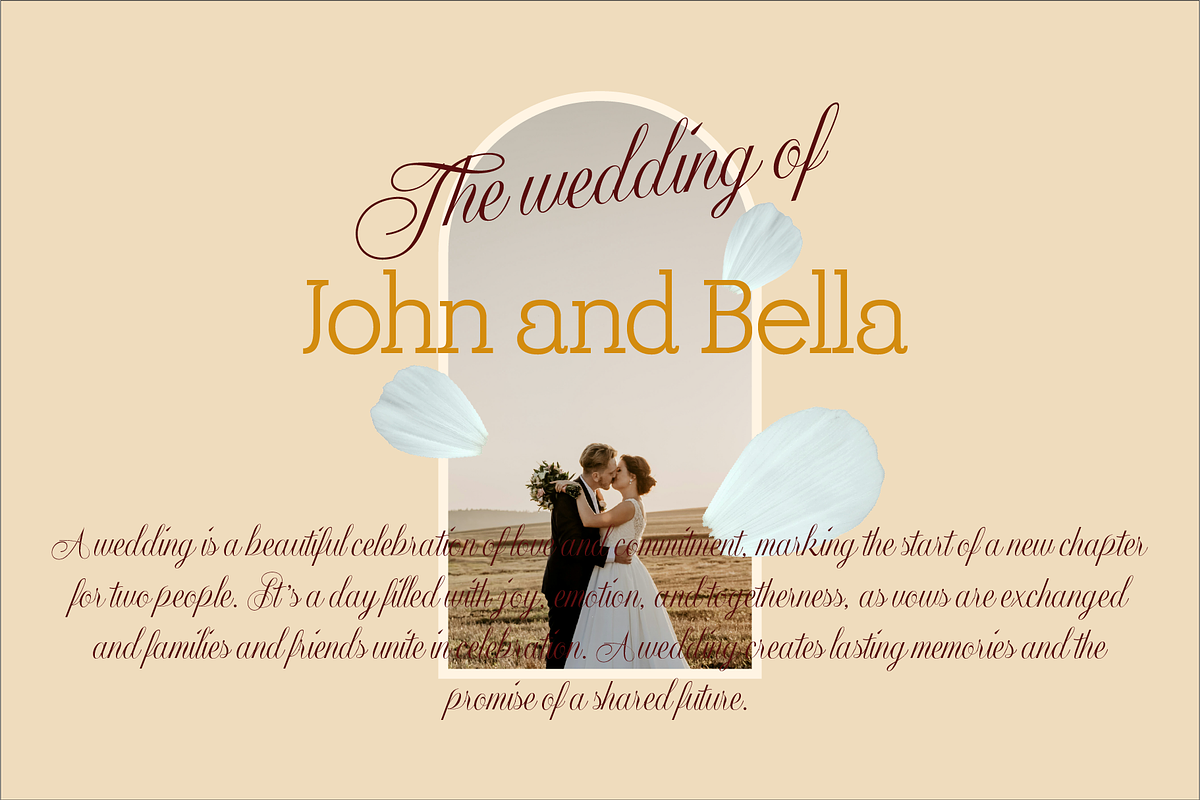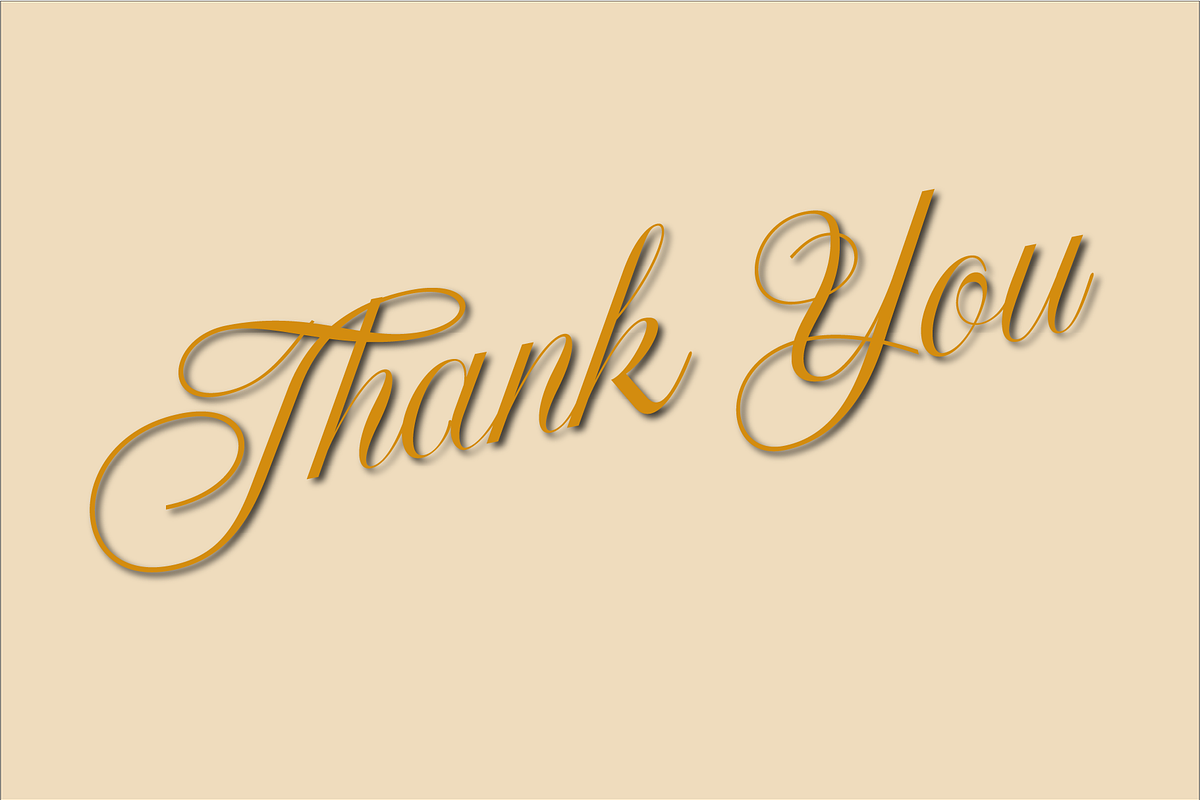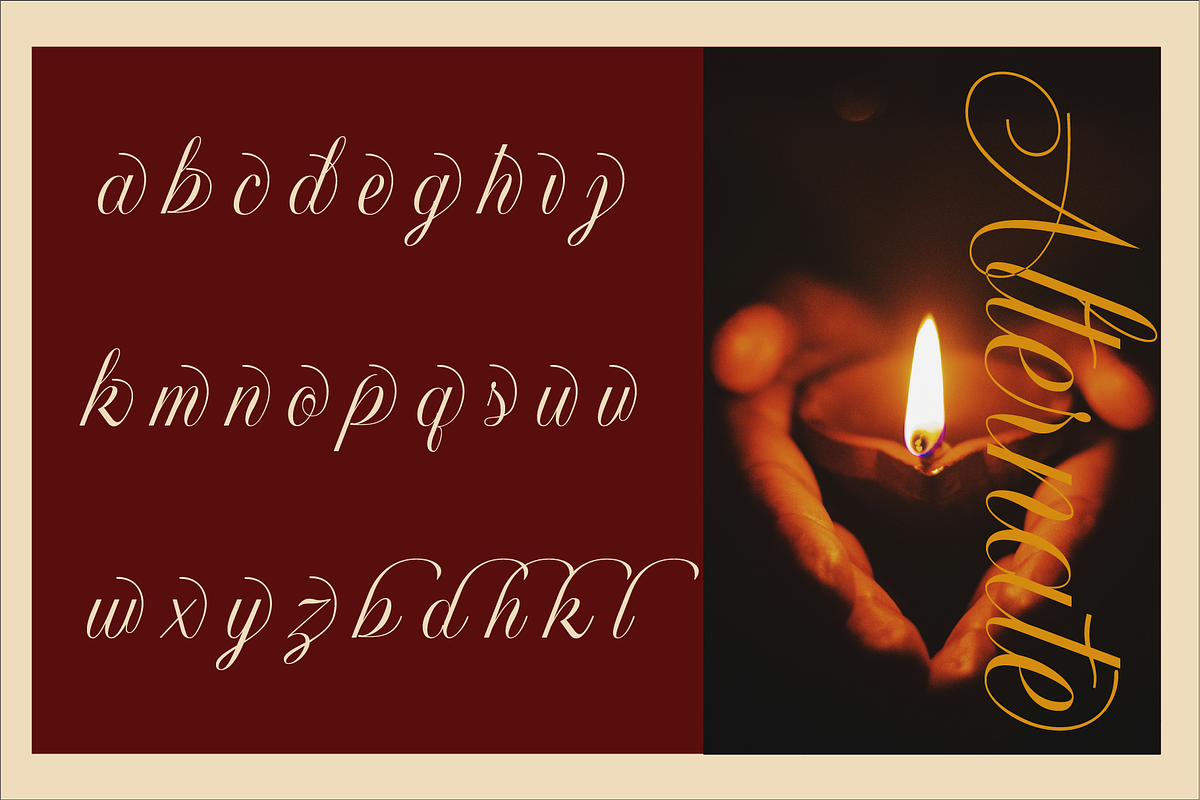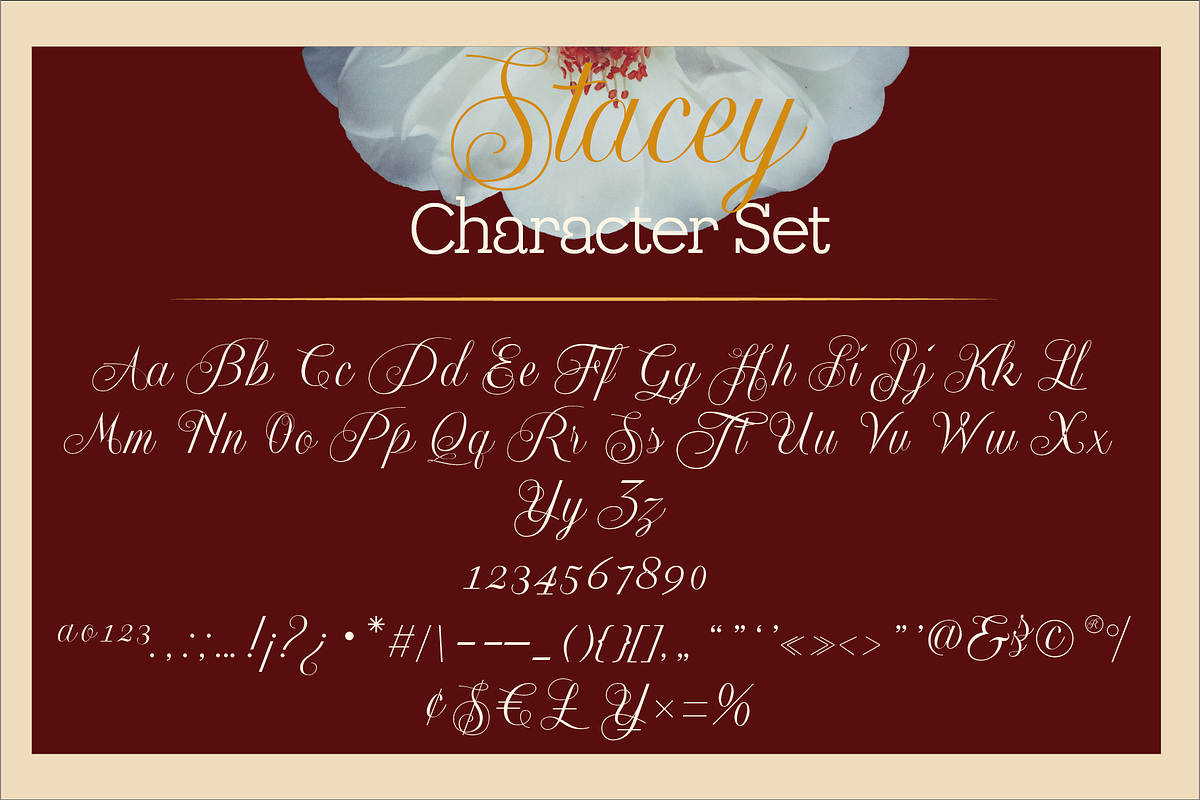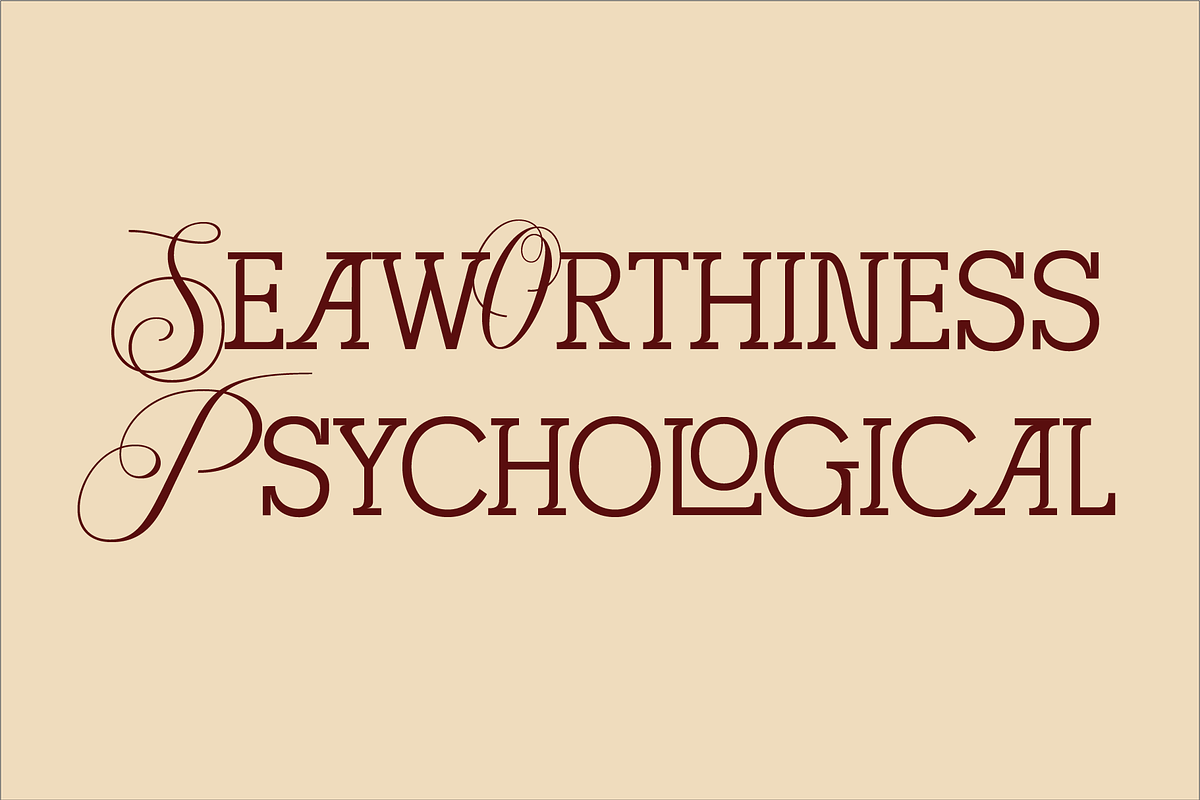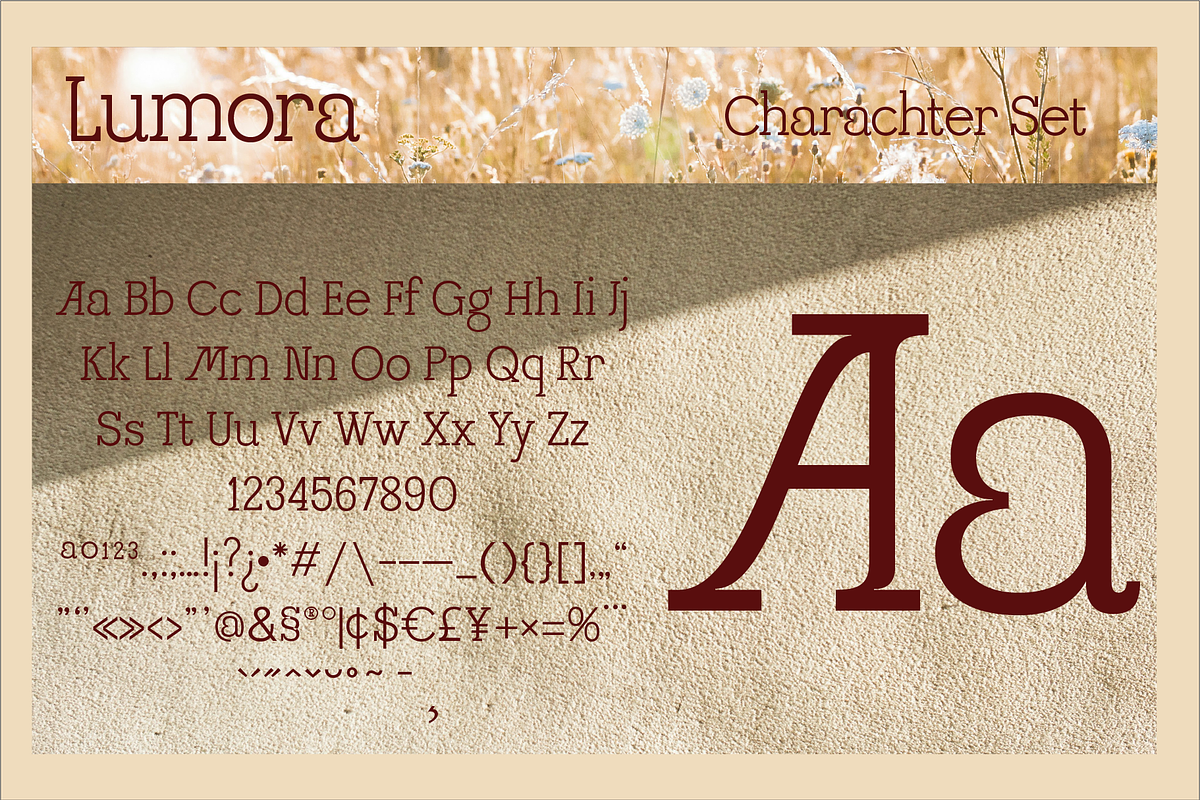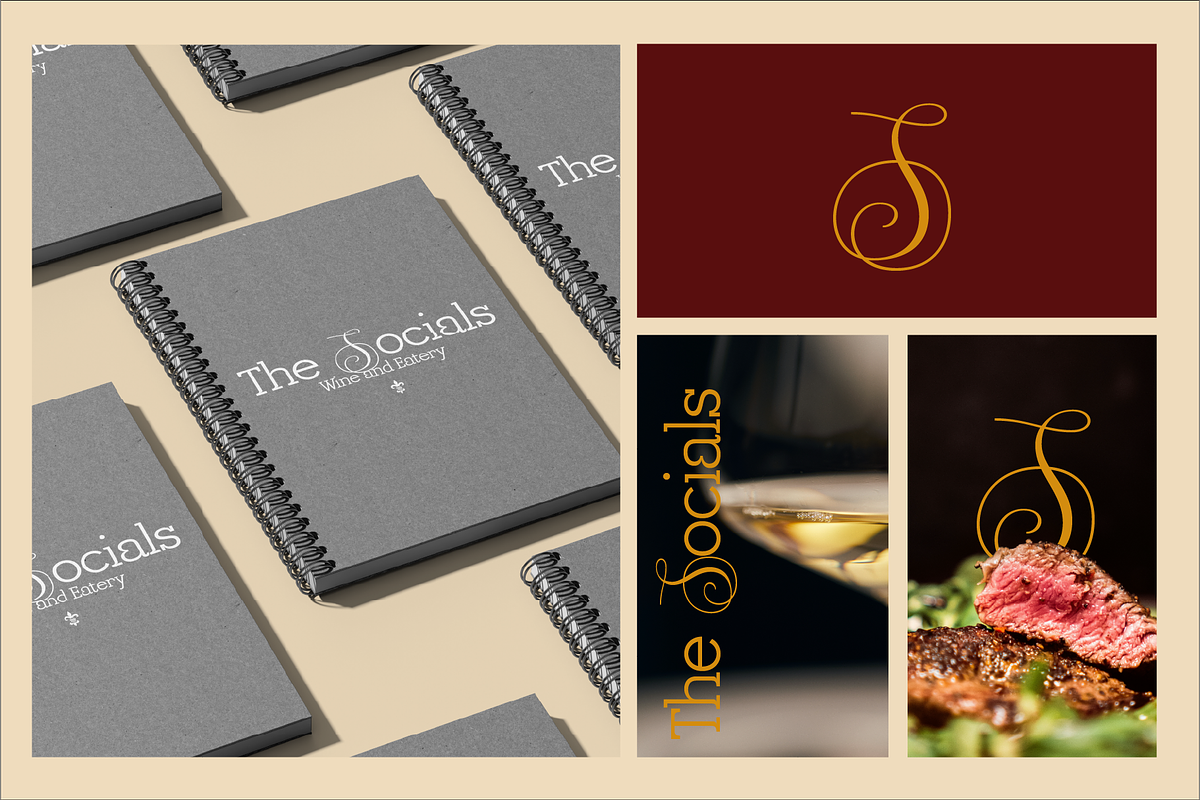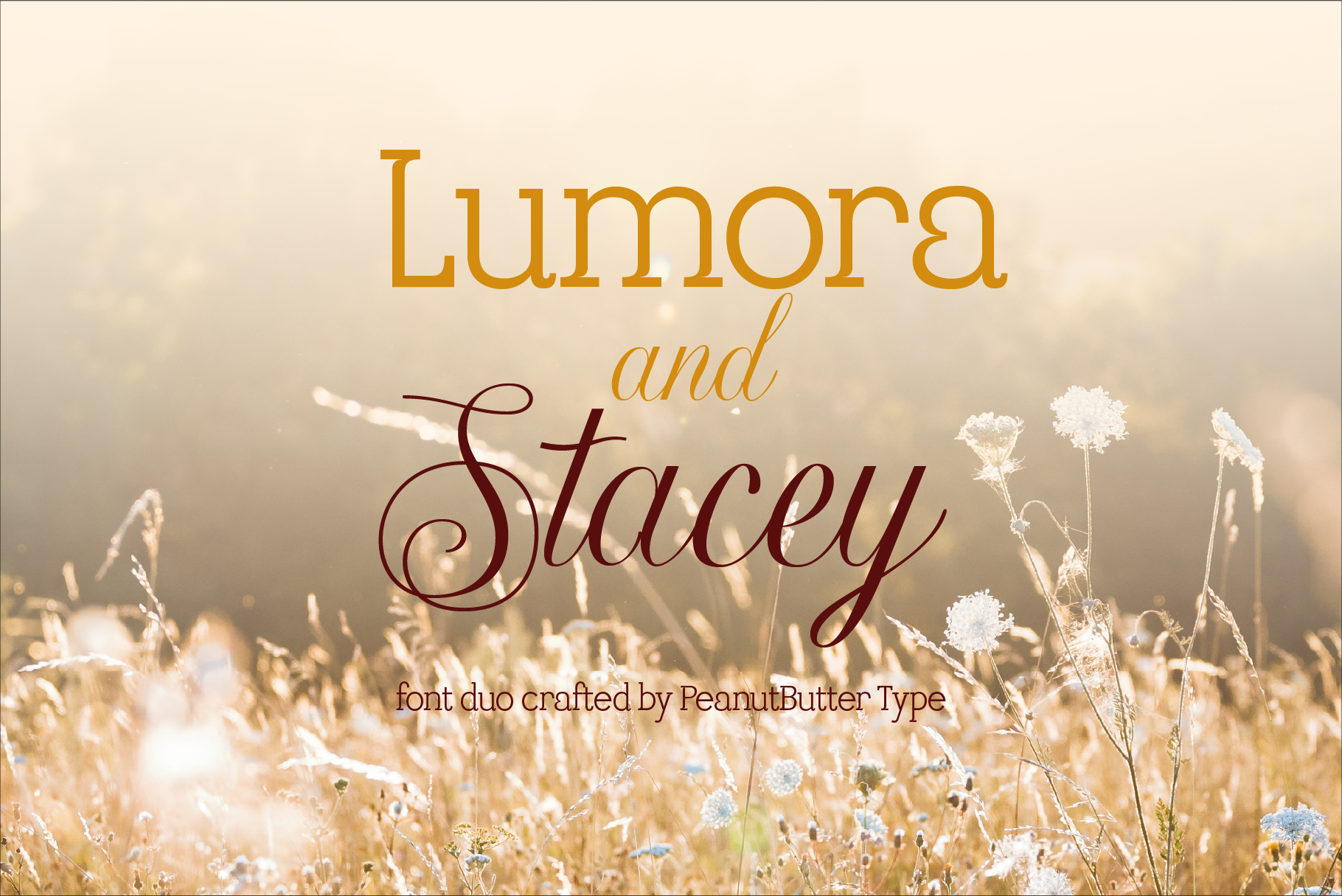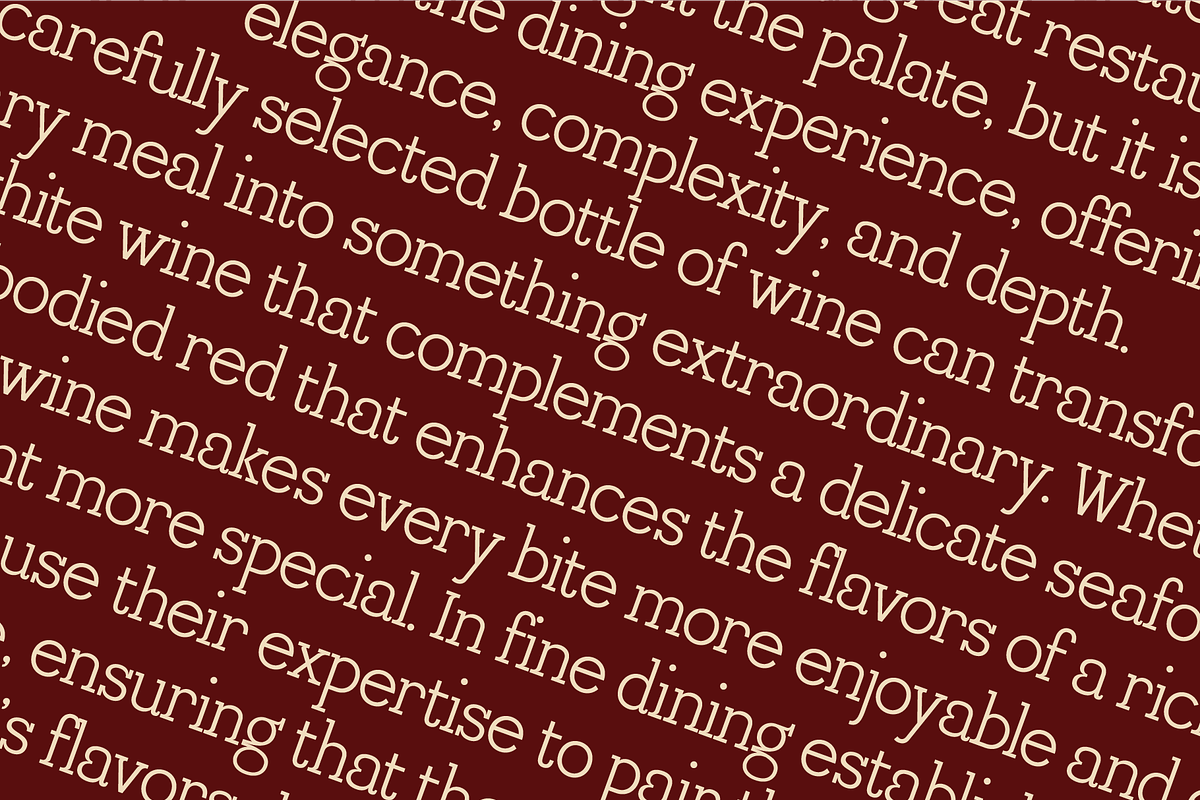
Lumora and Stacey Font Duo
Introducing Lumora and Stacey, a dynamic font duo designed to bring elegance and personality to your projects. Lumora is a sleek, modern serif that exudes sophistication and professionalism, while Stacey, a beautiful script font, adds a touch of graceful flair and charm. The combination of Lumora’s clean structure and Stacey’s fluid, hand-lettered style makes this pair perfect for everything from branding and invitations to luxury websites and editorial designs. Whether you're aiming for modern elegance or an artistic, personal touch, Lumora and Stacey will effortlessly elevate your creations.